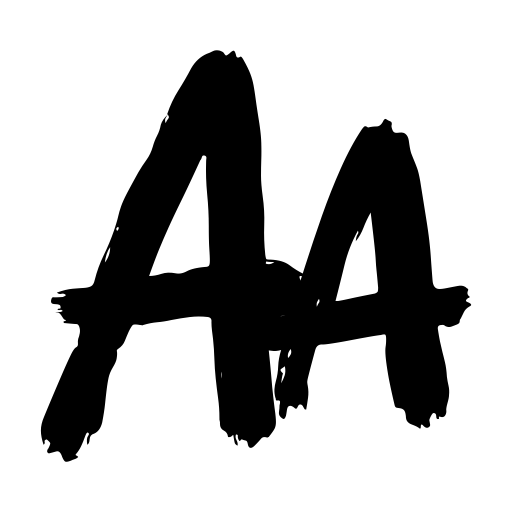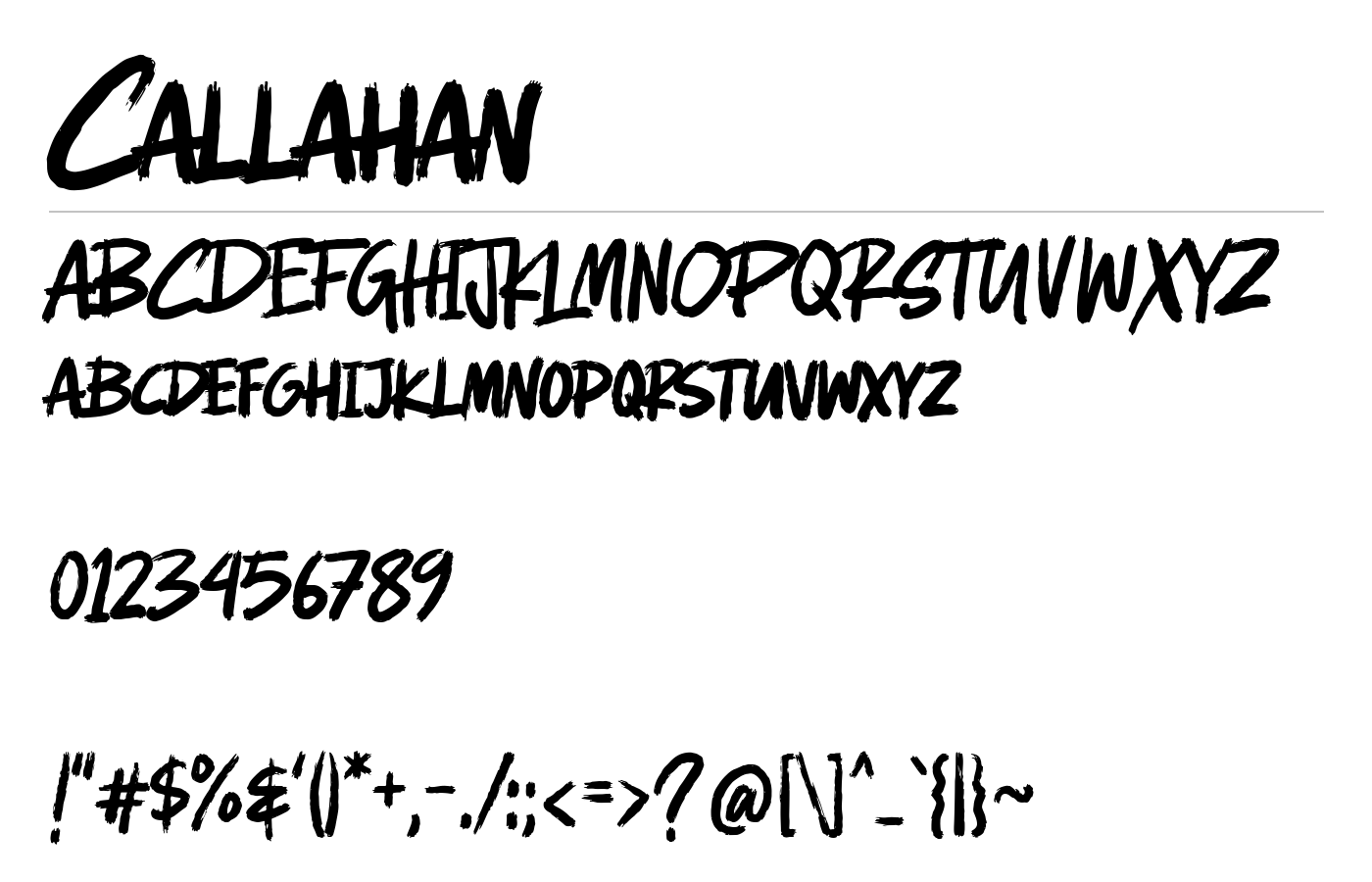
Callahan is a bold, hand-drawn brush script font with a lively and expressive style that feels both dynamic and informal. Its uneven strokes and textured edges give it an energetic, artistic personality, making it perfect for creative projects, branding, posters, and casual headlines that want to convey a sense of spontaneity and individuality.
Callahan Font
About Callahan Font
| Font family | Callahan Font |
| Designer | Wahyu Andi P |